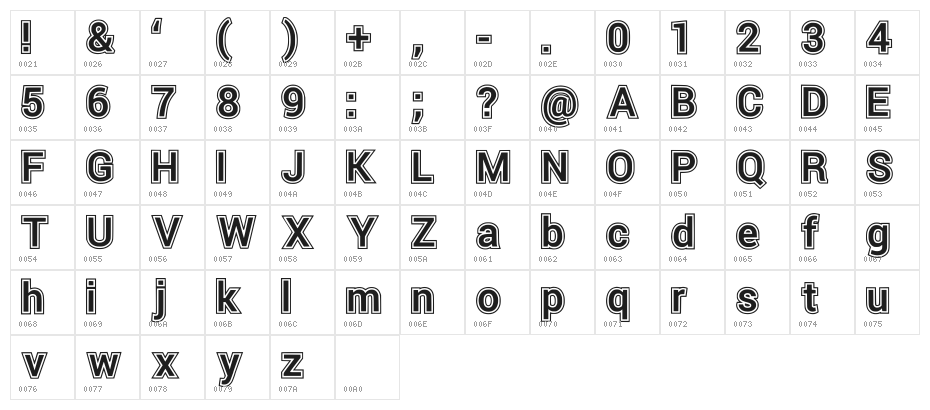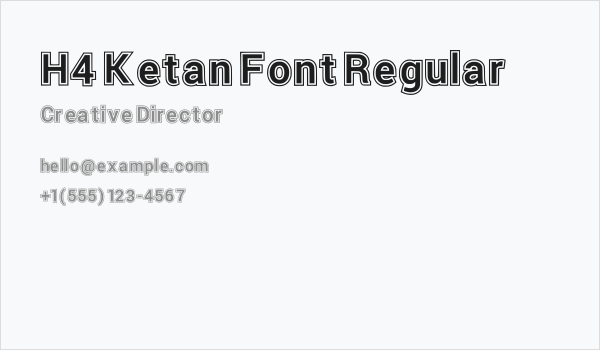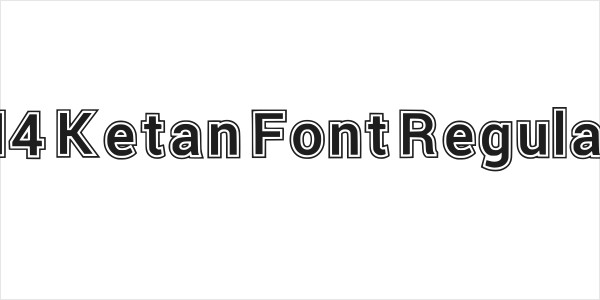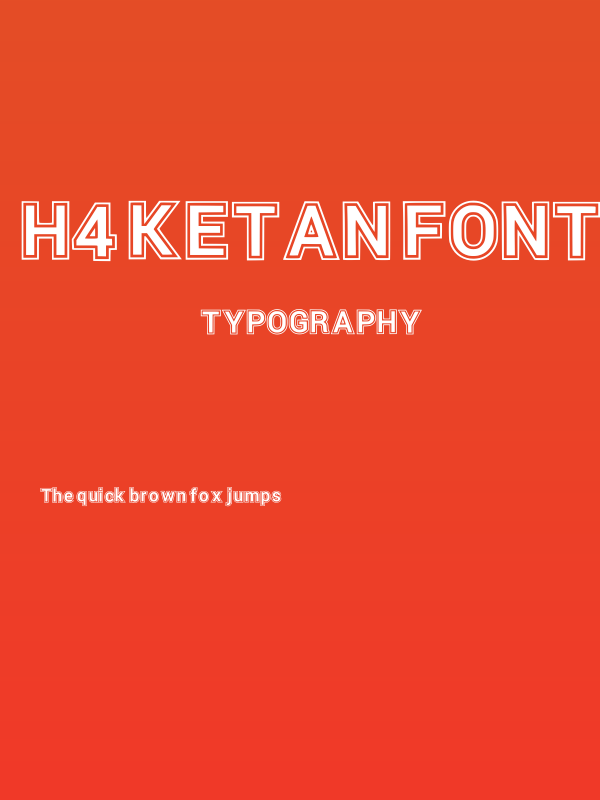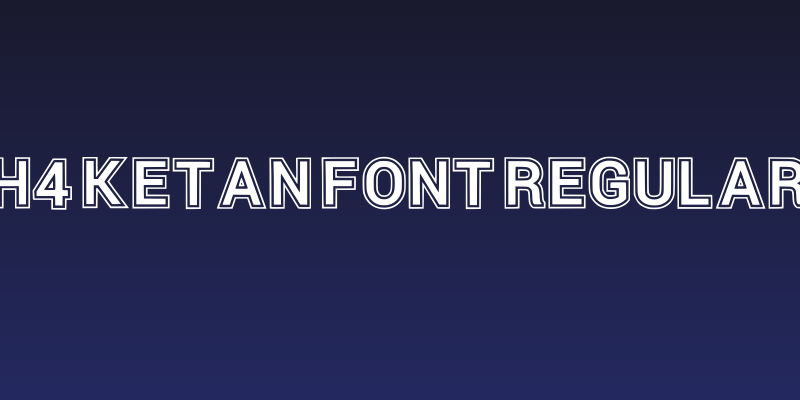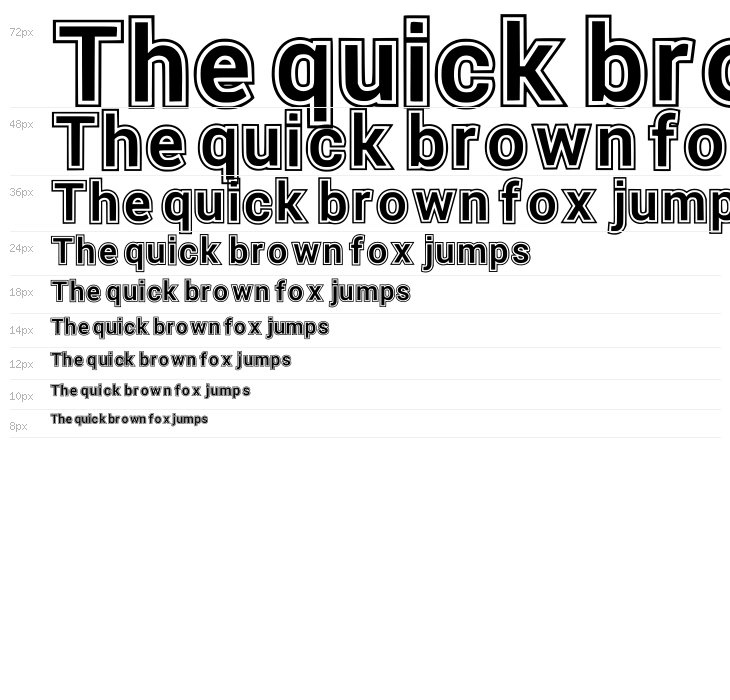
H4 Ketan Font Regular Font
H4 Ketan Font Regular Description
This font features a bold, outlined style with a strong presence. The characters are uppercase and lowercase, with a consistent thickness throughout each letter. The design is clean and modern, with a slight geometric influence that adds a contemporary touch. The numbers and special characters maintain the same bold outline, ensuring uniformity across all elements. This font is highly legible and stands out due to its thick borders, making it ideal for attention-grabbing text.
| Proposed Projects | Ideal for posters, headlines, logos, and branding materials where a strong visual impact is desired. |